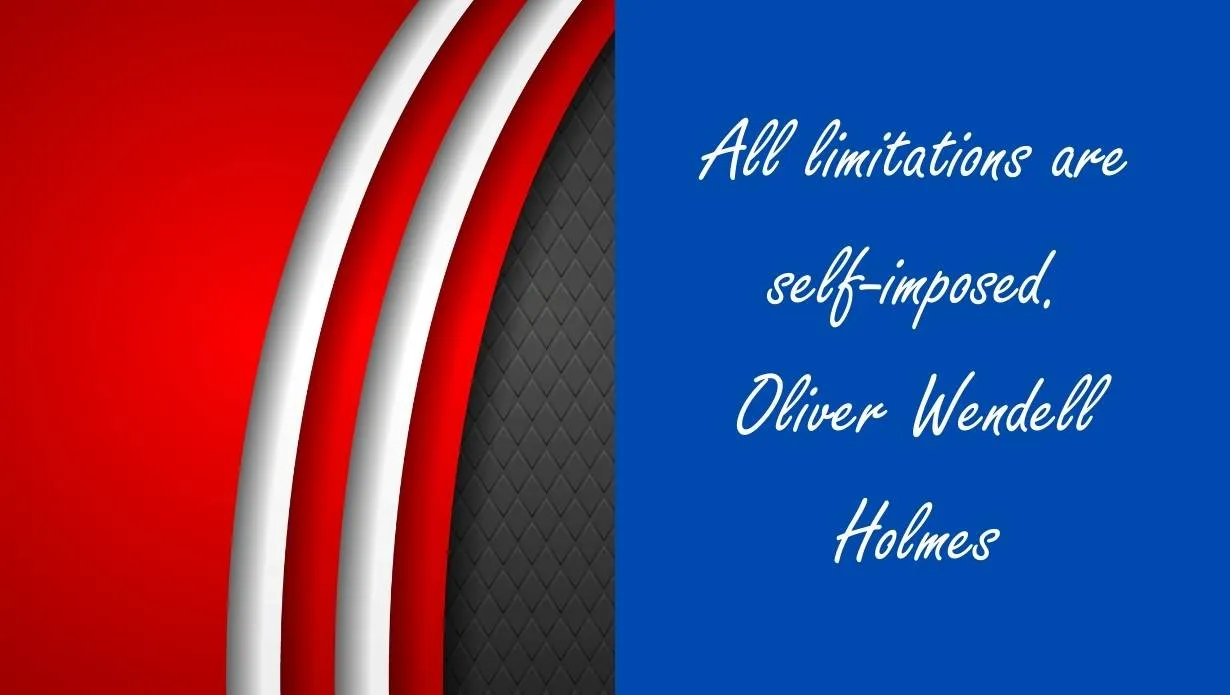
If you’re looking for a calligraphy font with a unique and stylish design, Freestyle Font is a perfect choice. With its range of alternate characters and ligatures, It is a great choice for any project that requires a touch of style.
It is a calligraphy typeface created by American typeface designer Erica Gonzales in 2018. The font features a unique and stylish design that makes it perfect for use in a variety of applications. This typeface looks like the moonlight on the beach font.
View of Freestyle Font Family
| Name | Freestyle Font |
| Designer | Erica Gonzales |